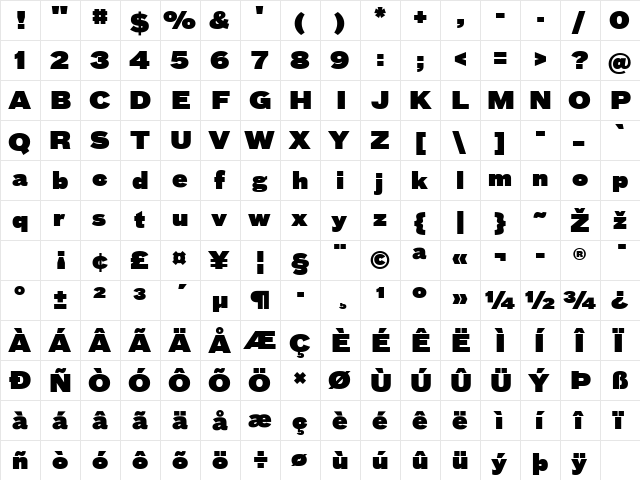
BauLF-Super Regular
| Foundry | Christian Schwartz published by FontShop International for the FontFont Library |
| Designer | Christian Schwartz |
BauLF-Super offers clean, dependable letterforms without strong stylistic allegiance, making it a practical choice for designers who need flexibility.